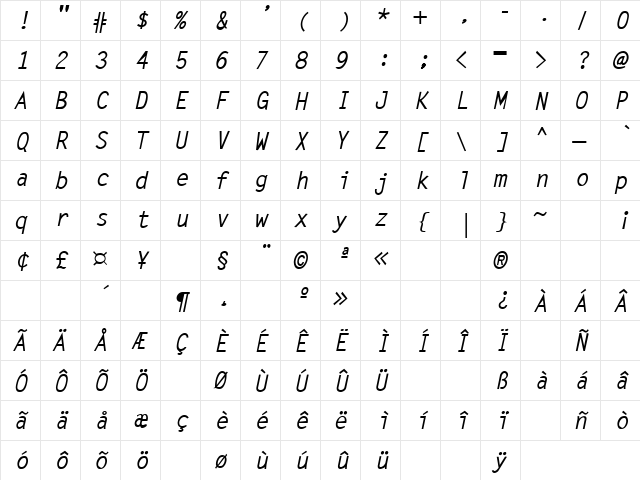
Celebration Day 7 Regular
Design Context for Celebration Day 7 Typeface
Celebration Day 7 takes a measured approach to typography — its balanced proportions and neutral character make it a reliable workhorse for both digital and print work.
Pro Tip: Use Celebration Day 7 in both headline and body roles to test its range before committing to a single application.